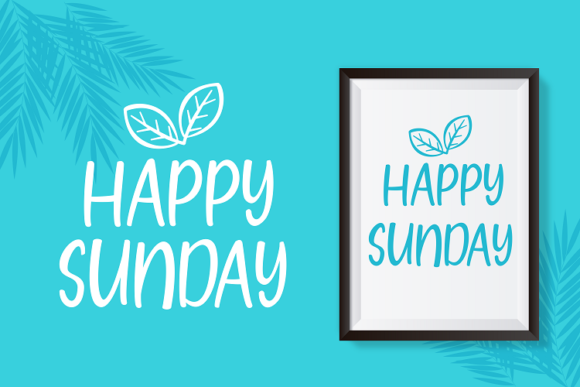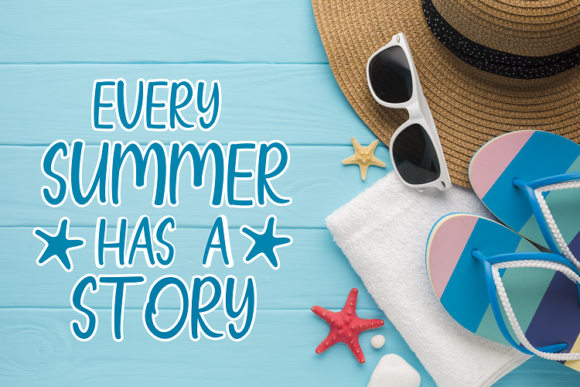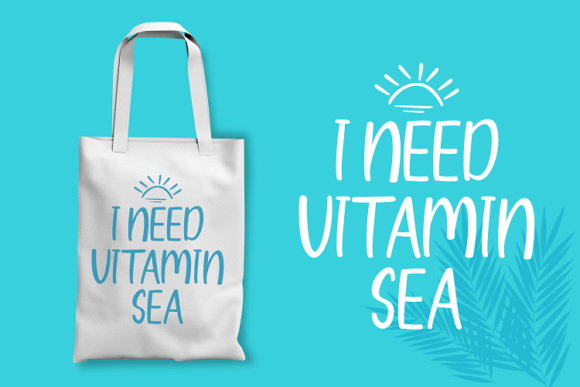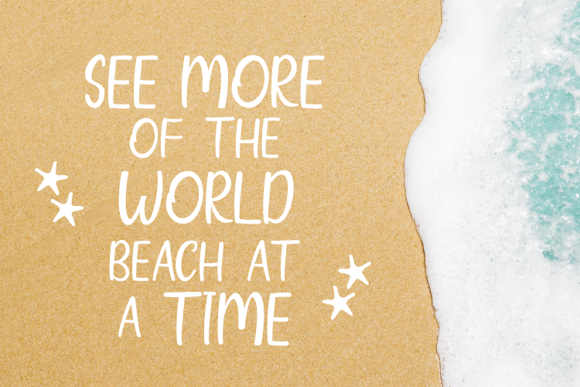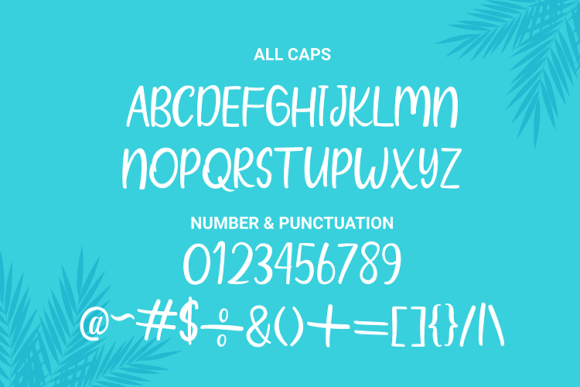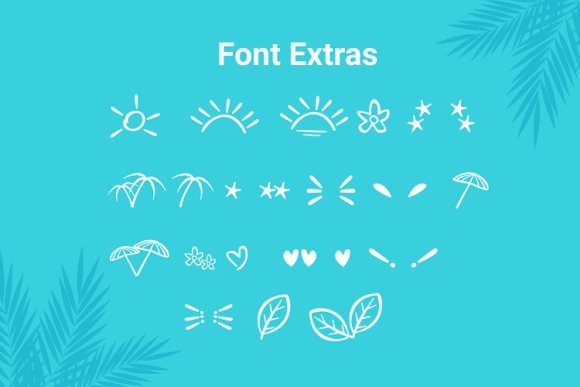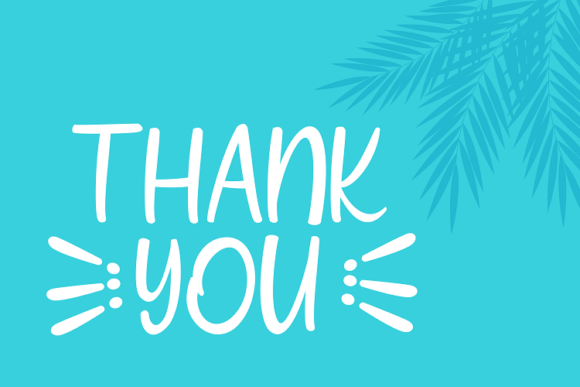
Wind Palm Font
About Wind Palm Font
Wind Palm is a sweet and colorful handwritten font. Fall in love with this incredibly friendly and versatile font and use it to create spectacular designs!